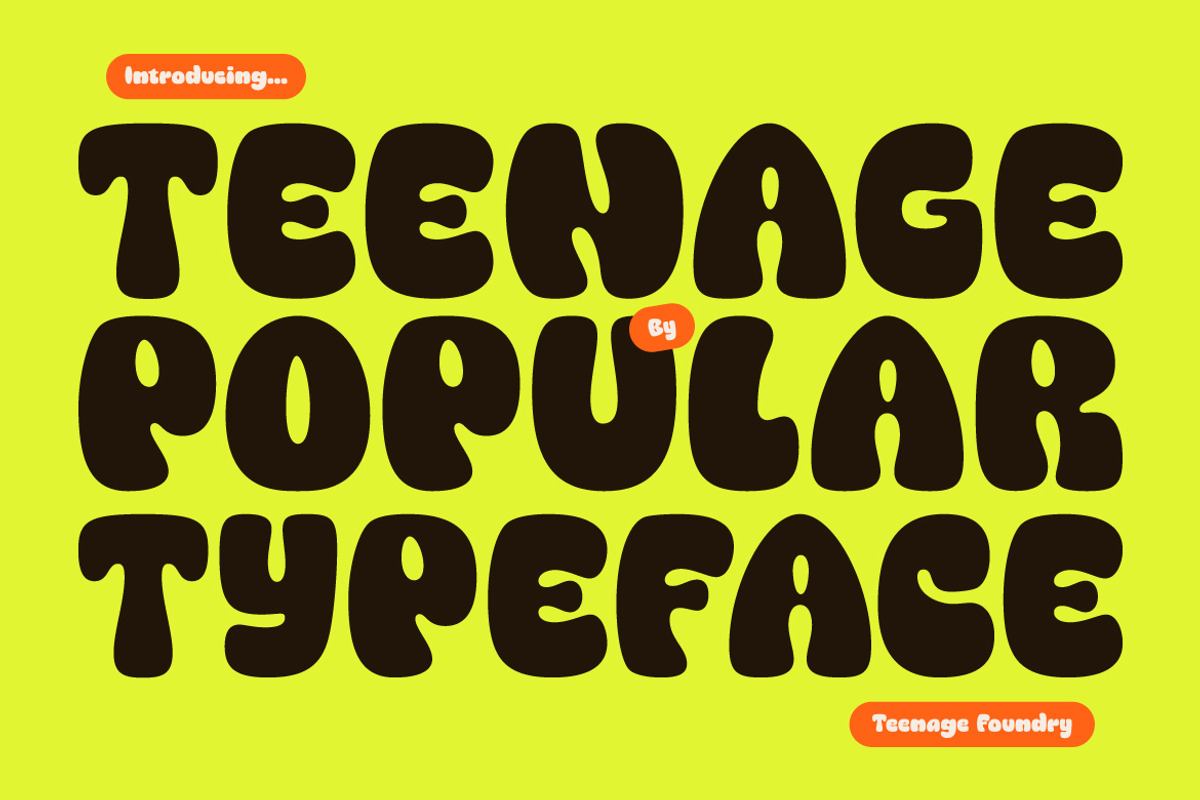
Teenage Font Free Download is a fun, youthful, and energetic typeface designed to capture the bold spirit of teen culture. With its playful curves, clean structure, and trendy vibe, Teenage is perfect for social media graphics, YouTube thumbnails, lifestyle branding, teen fashion, school projects, and pop culture-inspired designs.
Crafted to reflect modern youth style, Teenage Font Free Download delivers both personality and readability. Its approachable and vibrant look makes it ideal for headlines, stickers, posters, and anything that needs to speak directly to a young, creative audience.
Whether you're creating content for a teen brand, a music playlist cover, or a colorful merch line, Teenage adds a friendly and upbeat aesthetic to your visuals. It pairs well with handwritten scripts or bold sans-serifs for added flair and contrast.